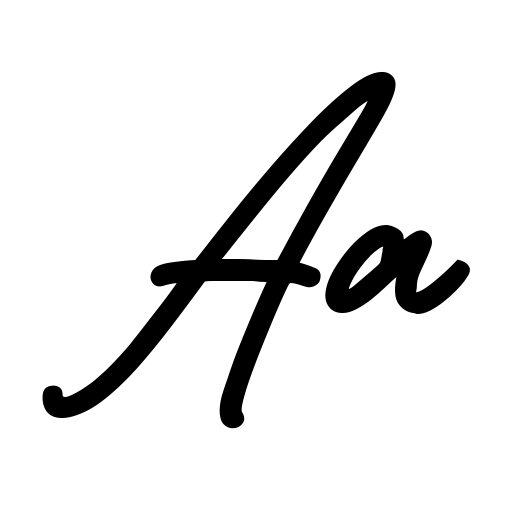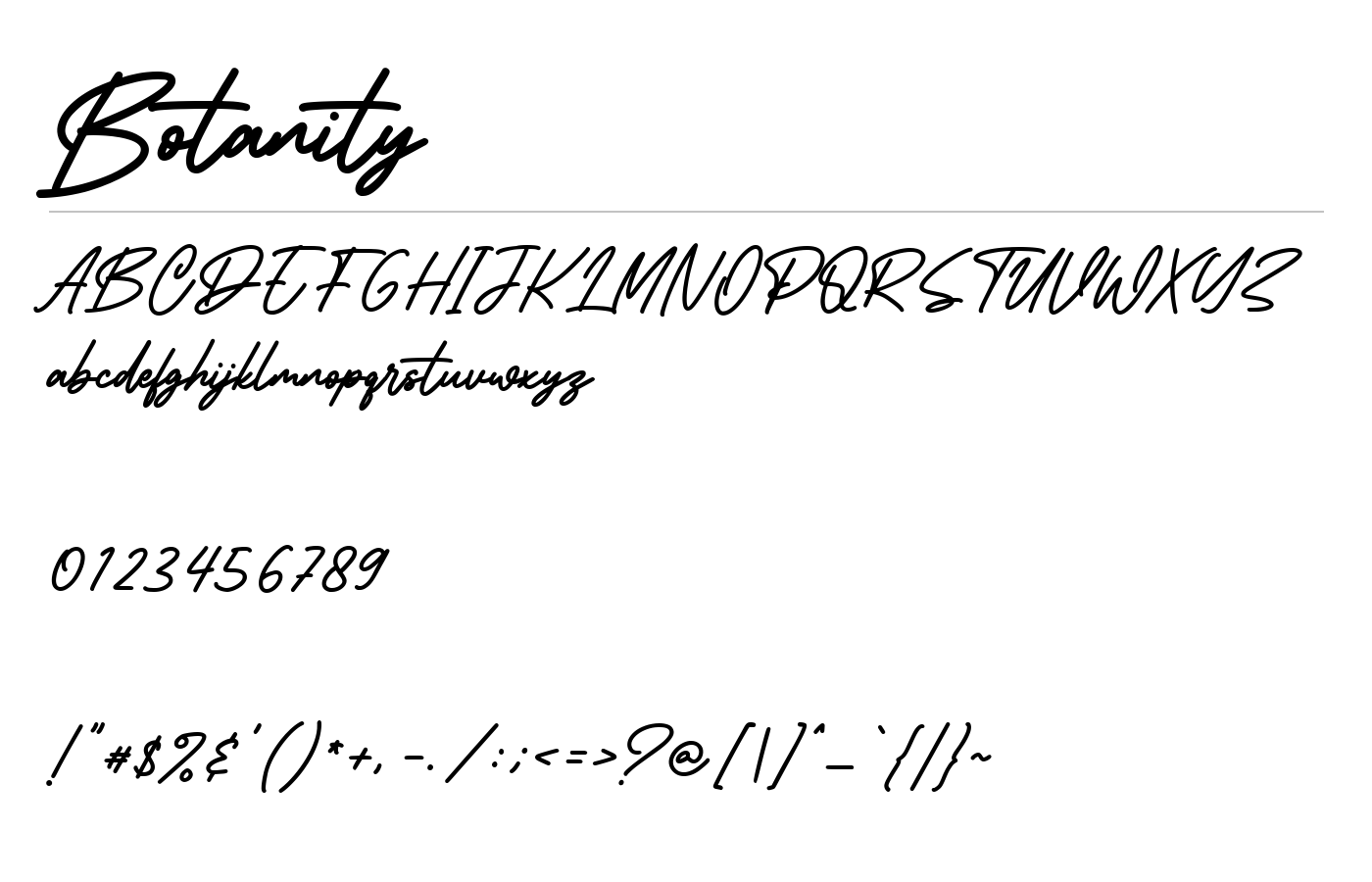
Botanity is a lively, modern script font that features smooth, flowing strokes with a slightly casual feel. Its slender, elegant letterforms and natural handwritten style make it perfect for branding, invitations, and creative projects that want to convey a personal, sophisticated touch. This font works especially well for fashion, lifestyle, and boutique designs where a unique yet approachable aesthetic is desired.
Botanity Font
About Botanity Font
| Designer | MaulanaCreative |